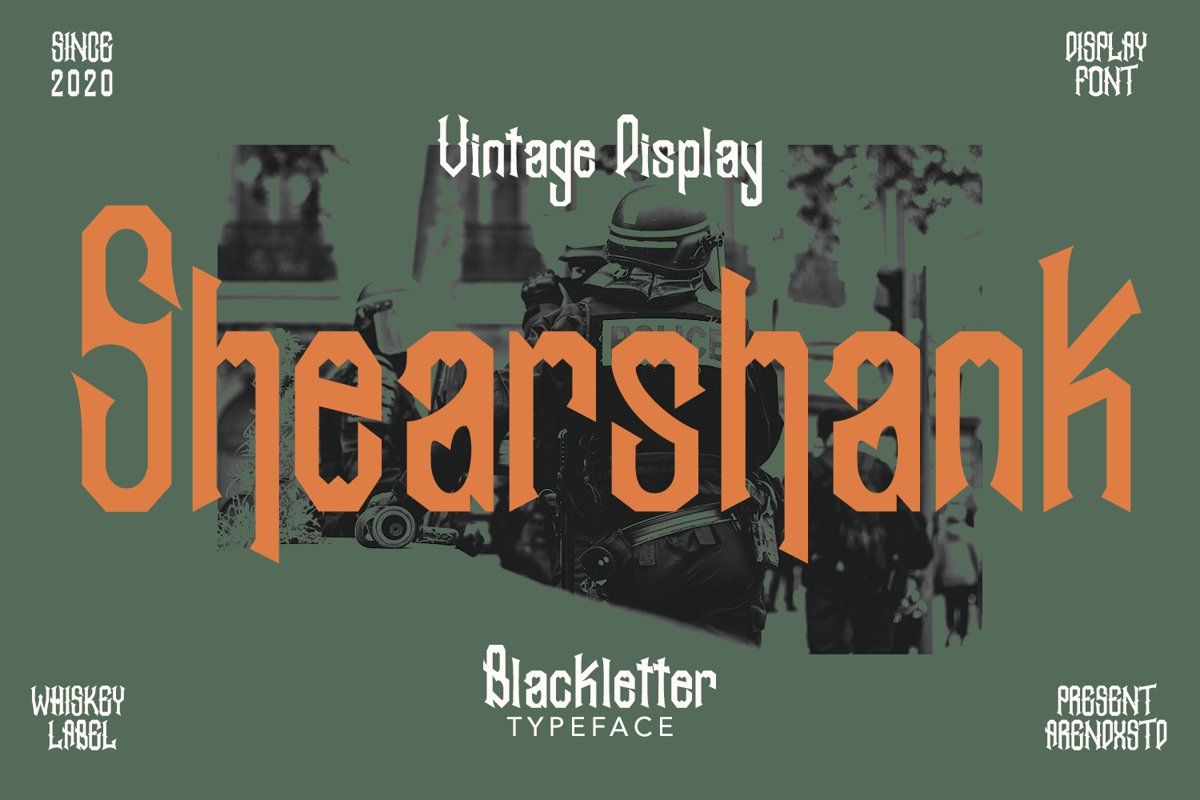
Shearshank
Shearshank is a gothic font that is very elegant and has unique characteristics that each character has so it is suitable for your design needs and will add an elegant and frightening atmosphere Shearshank came with opentype features such stylistic alternates, stylistic sets & ligatures good for logotype, poster, badge, book cover, tshirt design, packaging and any more.